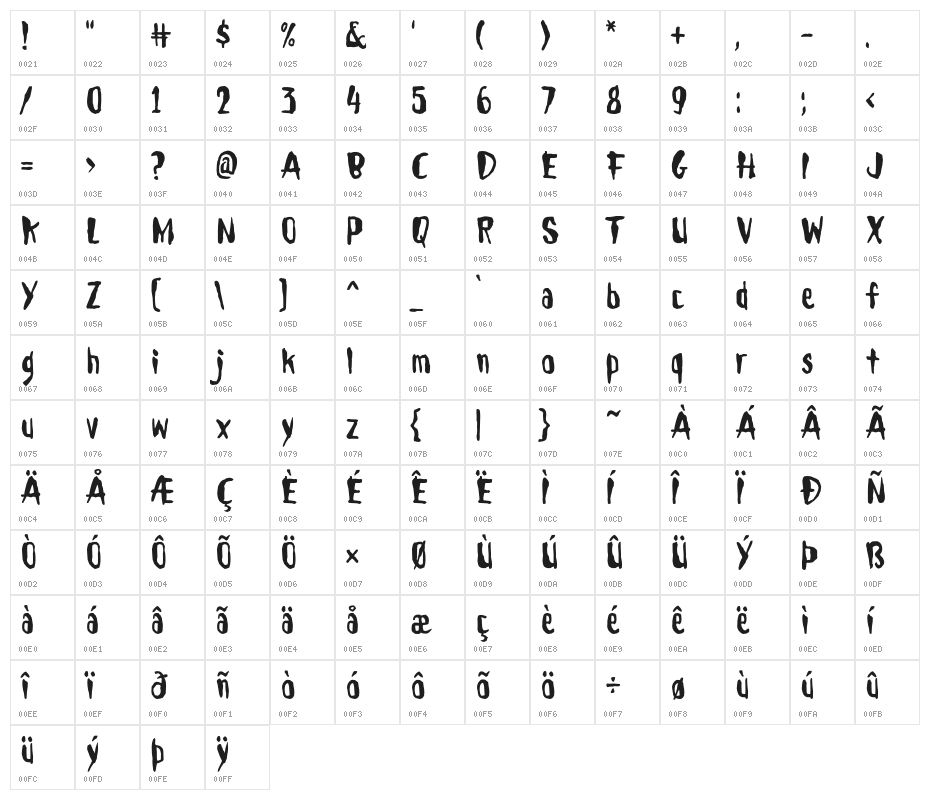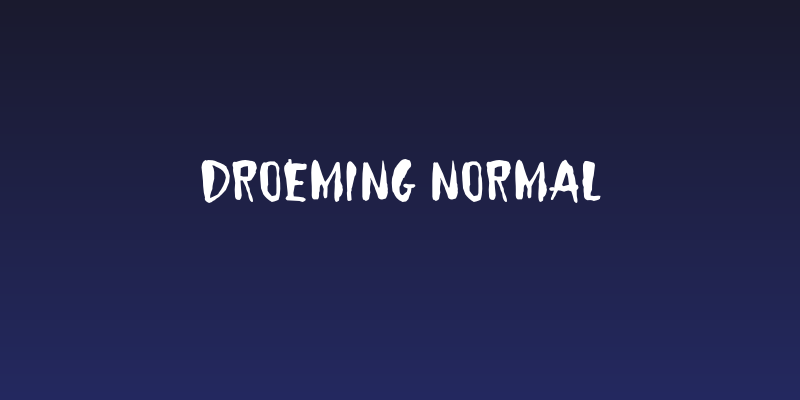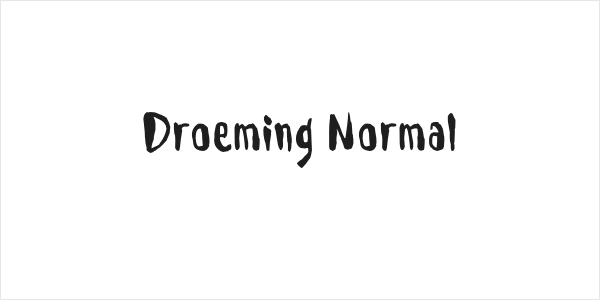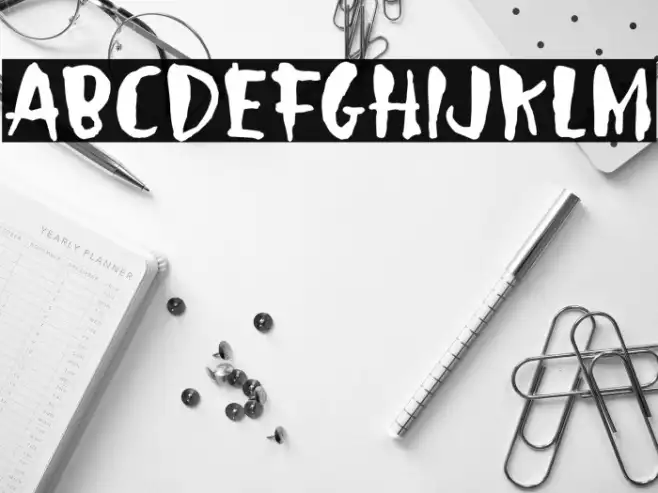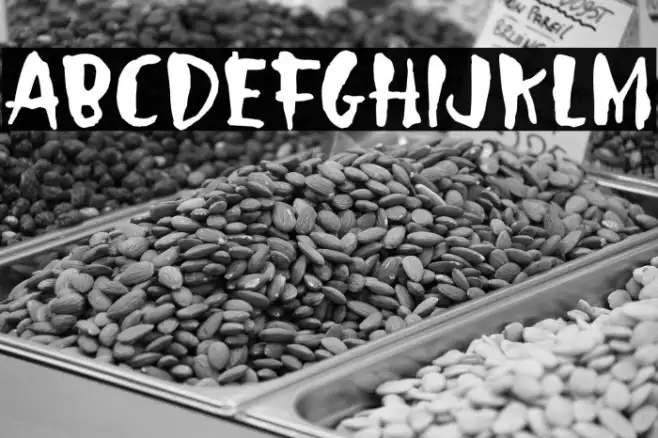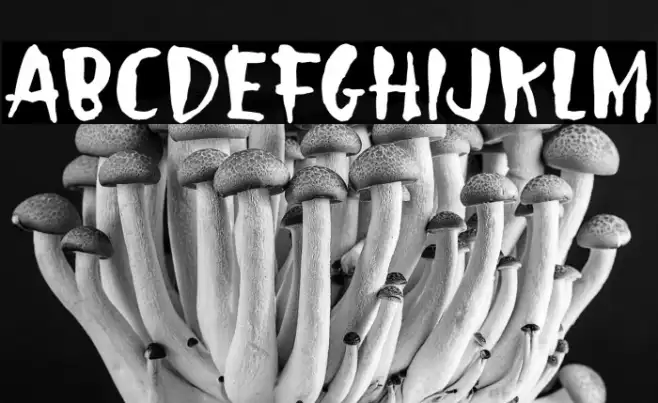
Droeming Normal Font
Droeming Normal Description
This font features a bold and expressive style with a hand-drawn appearance. The characters are uneven and organic, giving a sense of movement and energy. The uppercase and lowercase letters maintain a consistent style, with thick strokes and irregular edges that add to the font's unique charm. The numbers and special characters follow the same aesthetic, making the font versatile for various creative projects. Its playful and artistic nature makes it suitable for designs that require a personal touch.
| Proposed Projects | Ideal for posters, artistic projects, children's books, and creative branding. |